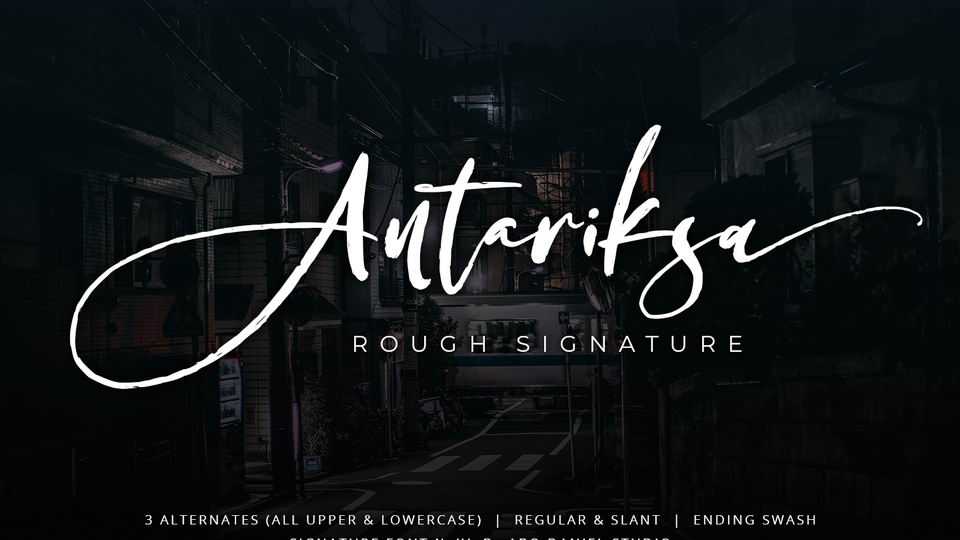
Download Antariksa font, a stylish rough signature scriptwith fancy swashes. Antariksa is great for signature style logos, branding, advertising, titling, quotes, and more.
Designer: Abo Daniel